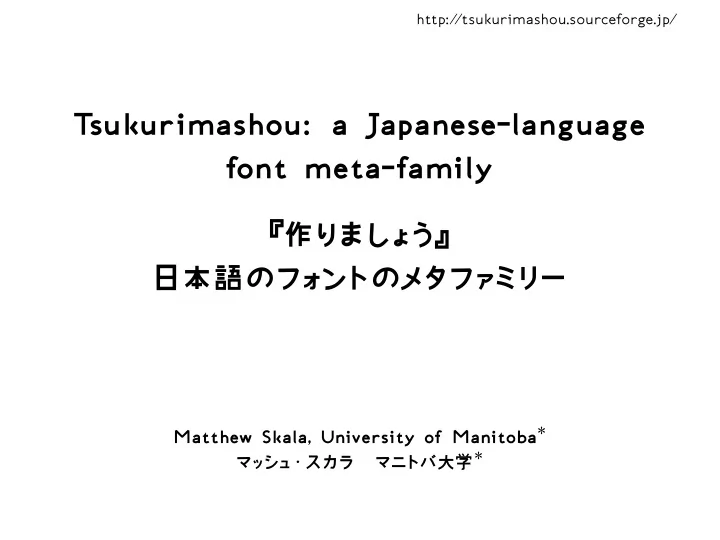
Tsukurimashou: a Japanese-language font meta-family 『作りましょう』 日本語のフォントのメタファミリー
Japanese is easy! Japanese is impossible! Tsukurimashou Character databases
. ⿰ . U+8A9E go “language ” .言
. U+8A00 i “speak” .吾
. ⿱ . U+543E ware “myself” .五
. U+4E94 go “five ” .口
. U+53E3 kuchi “mouth” .語→⿰言⿱五口
. 永字八法 The Eight Strokes of Eternity! . ① strange stone . ② jade table . ③ iron pillar . ④ crab’s pincer . ⑤ tiger’s tooth . ⑥ rhinoceros’s horn . ⑦ bird pecking . ⑧ golden knife SLIDE 6 http:/ /tsukurimashou.sourceforge.jp/ .
. 作りましょう! Let’s make something! . 永字八法 8 strokes . 50字の部首かな? 50 components, I guess? . ⿰水⿱亠⿱口小 Unicode IDS . METAFONT .涼
三十路漢字 ・ Kanji of Thirty Y ears
1980年 LCCD (Mei) 1982年, 1986年 Letter Spirit, etc. (Hofstadter, Metamagical Themas) 1984年 Chinese Metafont (Hobby & Guoan, TUGboat 5.2) 1989年 Quixote Oriental Fonts (Hosek, TUGboat 10.4) 1990年 Poor Man’s Chinese/Japanese (Ridgeway) 1991年 JemT EX (Jalbert) 1993年 Wadalab (TouDai) 1997年, 2003年 HanGlyph (Yiu & Wong, TUGboat 24.1) 2005年 Hóng Zì (Laguna, TUGboat 26.2) 2011年 Character Description Language (Wenlin Institute, commercial) 2012年 Adjustable Fonts (Type Project, commercial)
.BEW ARE THE NURIKABE!
. ⿰ . U+6797 hayashi “forest” .木
. U+6728 ki “tree ” .木
. U+6728 ki “tree ” .林
. ちがう different . 同じ same . 林→⿰木木 SLIDE 10 http:/ /tsukurimashou.sourceforge.jp/ .
. ⿰ . U+6DBC ryou “cool breeze ” .水
. U+6C34- mizu
京
. ⿱ . U+4EAC kyou “capital” .亠
. U+4EA0 keisankanmuri [that shape] . ⿱ .口
. U+53E3 kuchi “mouth” .小
. U+5C0F shou “small” . 何これ? WTF? . 辞書ではない not in dictionary . ちがう different . Unicodeではない not in Unicode . 涼→⿰水⿱亠⿱口小 . ダ メだよ! ・ no good! SLIDE 11 http:/ /tsukurimashou.sourceforge.jp/ .
Appearance over etymology.
語源より観
Sometimes, exceptions are necessary.
ときどき特例が必要
Every character requires human intervention.
毎字は、 人間介入が 必要
kanji 5000 漢字 LOC/kanji 65 1漢字につきLOC LOC 325000 LOC LOC/day 10 1日につきLOC days 32500 日 working days/year 250 1年につき仕事の日 years 130 年 .
. がんばって下さい Please work hard. Starting is O(1). Finishing is O(n). 最初はO(1)。 最後がO(n)。 SLIDE 14 http:/ /tsukurimashou.sourceforge.jp/ .
325000 LOC!
. ウィキを使おうっ We’ll use a Wiki — . f . なんでやねん Ya gotta be kidding. SLIDE 15 http:/ /tsukurimashou.sourceforge.jp/ .
フォント font
software
. バージョン管理 version control . チケットのシ ステ ム ticket system . 多態性 polymorphism . ビルドのシ ステ ム build system . 単体テスト unit tests .
Tsukurimashou 作りましょう
- ne developer working since
. Kaku 角 .源
. Maru 丸 .源 . Bokukko 僕女 .源
. Mincho 明朝物物物物物物
Tsukurimashou Kaku PS Tsukurimashou Mincho PS TsuIta Atama PS TsuIta Soku T suIta Soku PS SLIDE 21 http:/ /tsukurimashou.sourceforge.jp/
- pological parameterization
. mincho=0.0 .さ . mincho=1.0 . 0.0 . Kaku 角 . Maru 丸 . 0.3 . Bokukko 僕女 . 1.0 . Mincho 明朝 SLIDE 22 http:/ /tsukurimashou.sourceforge.jp/ . . Metapost . MetaType1 .
What language(s)?
何語か?
Who are the users? → Etymology or appearance?
ユーザは誰か?→語源と 観はどちらがいいか?
Data quality
データの品質